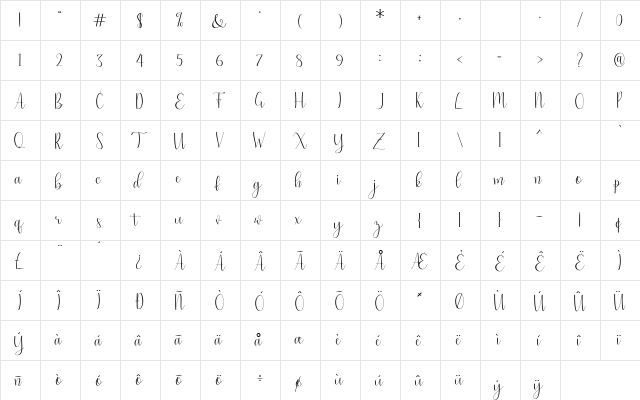
natasa Regular
| Foundry | Zulkhairi M Saleh |
| Designer | Zulkhairi M Saleh |
Design Context for natasa Typeface
natasa is a composed and adaptable typeface that performs quietly and consistently across a wide range of design contexts.